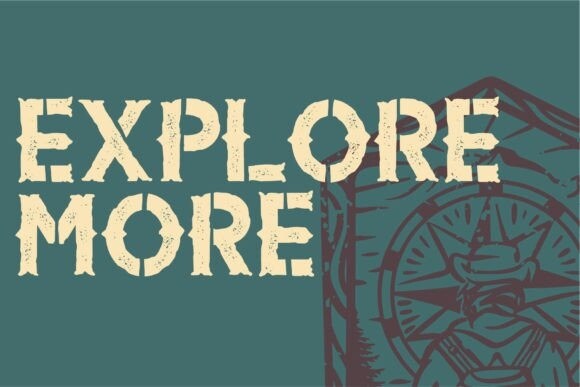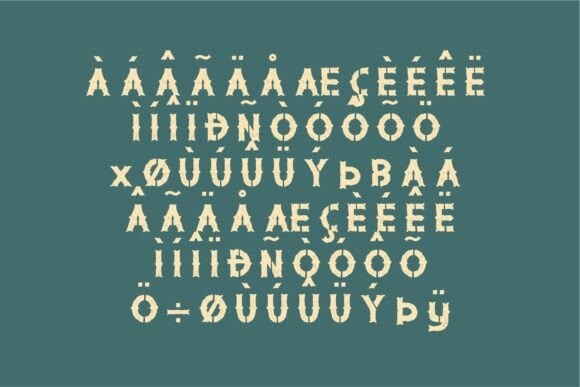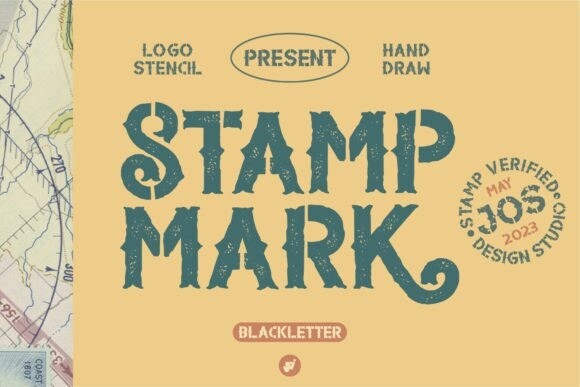
Stamp Mark – Vintage Stencil Font
Stamp Mark – Vintage Stencil Font – A strong vintage display font for your old-era visual branding. Perfectly fit for your vintage branding, motorcycle event, cars, poster, etc. Use it to add vintage and mystique flavor to any design! It’s ready and perfectly fit for your logo designs, headline, music projects & social media posts, event posters, brand imagery, product packaging, quotes, merchandise, etc.